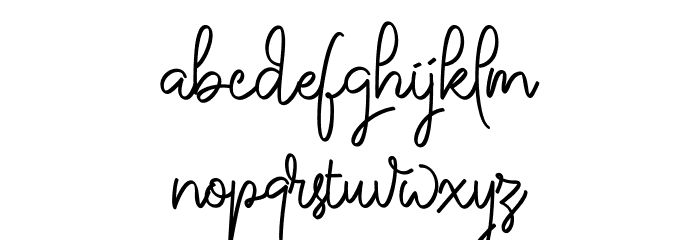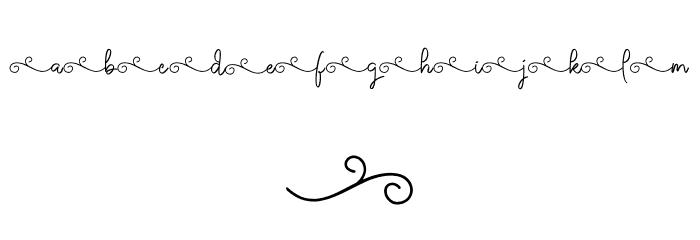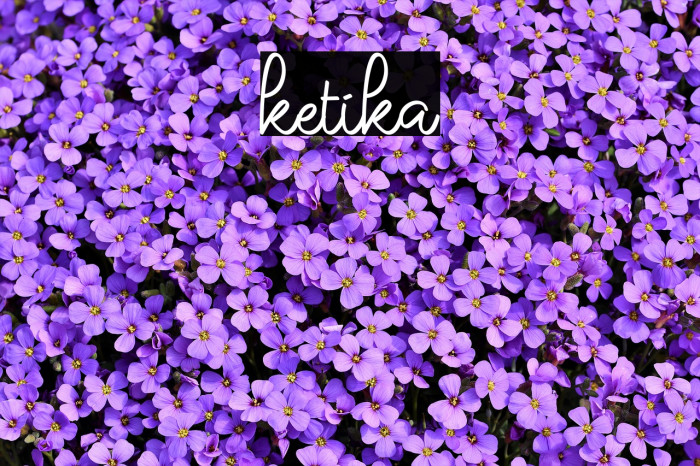
ketika Font
This font features a charming handwritten style with elegant, flowing lines and a playful yet sophisticated appearance. The characters are crafted with smooth curves and a slight slant, giving them a dynamic and lively feel. The uppercase letters are adorned with decorative swirls, adding a touch of whimsy and flair. The lowercase letters maintain a consistent style, with elongated ascenders and descenders that enhance the font's graceful look. This font is perfect for projects that require a personal touch, such as invitations, greeting cards, or branding materials. Its unique style makes it stand out while remaining legible and versatile.
A whimsical handwritten font with elegant swirls and flowing lines.
- Proposed Projects: Ideal for invitations, greeting cards, branding, and decorative projects.
- Use Case: Logos, Headlines, Decorative text